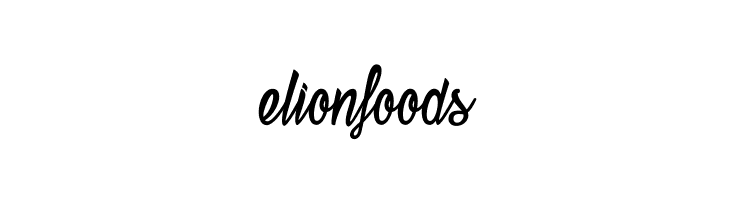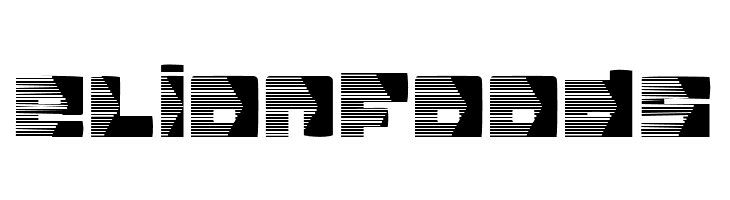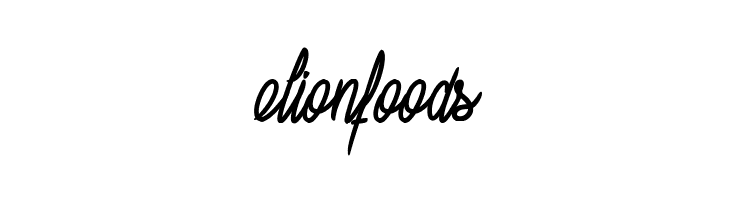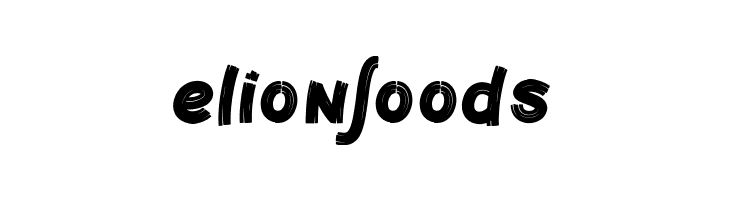
• Stardust_PersonalUseOnly
A playful and elegant script font with flowing, connected letters.
• Chardons_PersonalUseOnly
A dynamic and elegant script font with flowing, cursive letterforms.
• Wombats_PersonalUseOnly
A bold, geometric font with a unique striped pattern and modern design.
• Amtrash_PersonalUseOnly
A bold, energetic brush script font with dynamic strokes.
• Alice_PersonalUseOnly
• Pledge_PersonalUseOnly
A decorative and elegant script font with flowing cursive letters and stylish swashes.
• Distillated_PersonalUseOnly
A playful, handwritten font with smooth, flowing lines and a casual style.
• Aldebaran_PersonalUseOnly
An elegant script font with ornate uppercase and flowing lowercase letters.
• Raku_PersonalUseOnly
A dynamic, brush-stroke font with an energetic and playful style.
• Pimp My Christmas_PersonalUseOnly
A playful decorative font with Christmas-themed illustrations for each character.